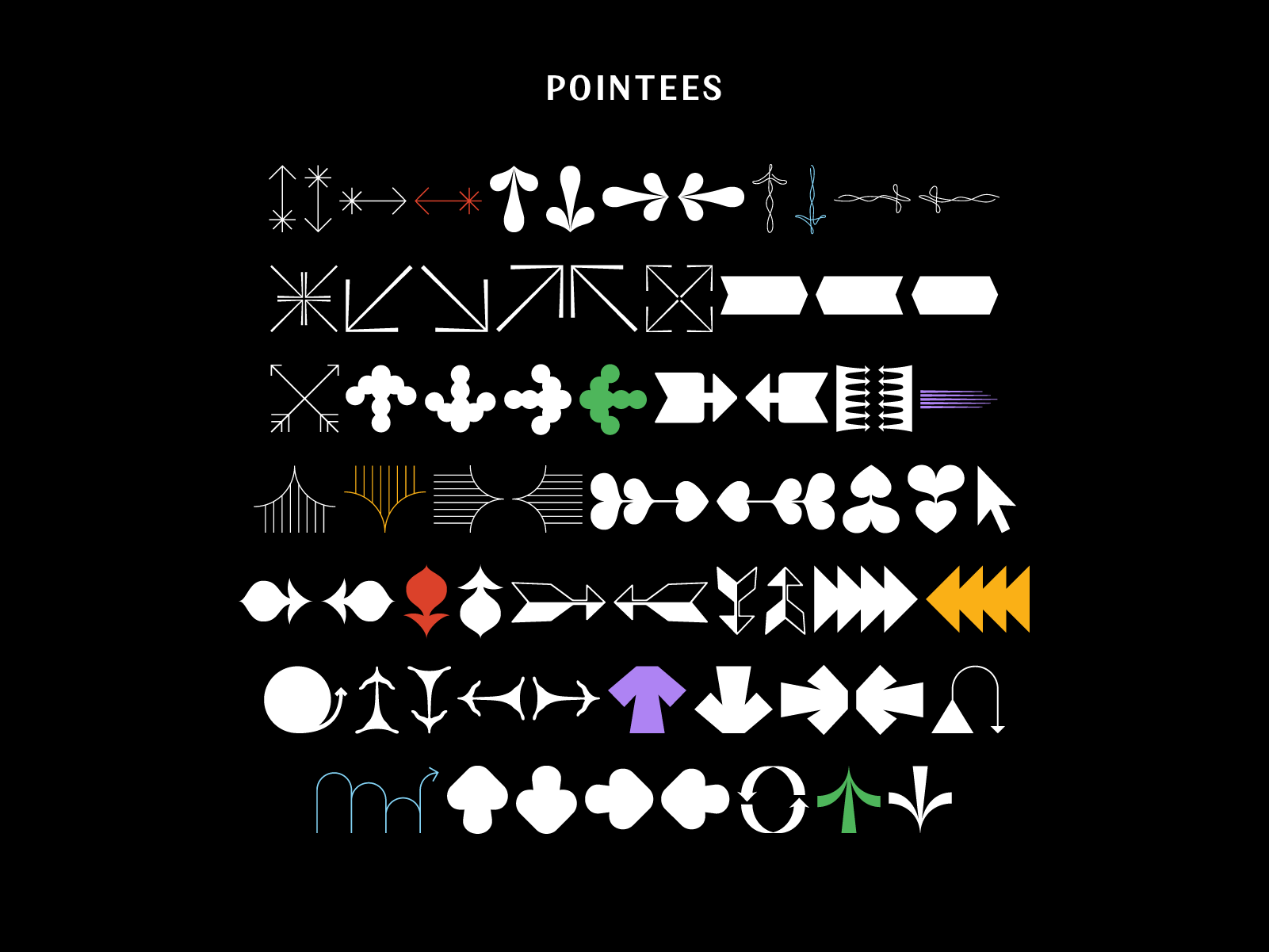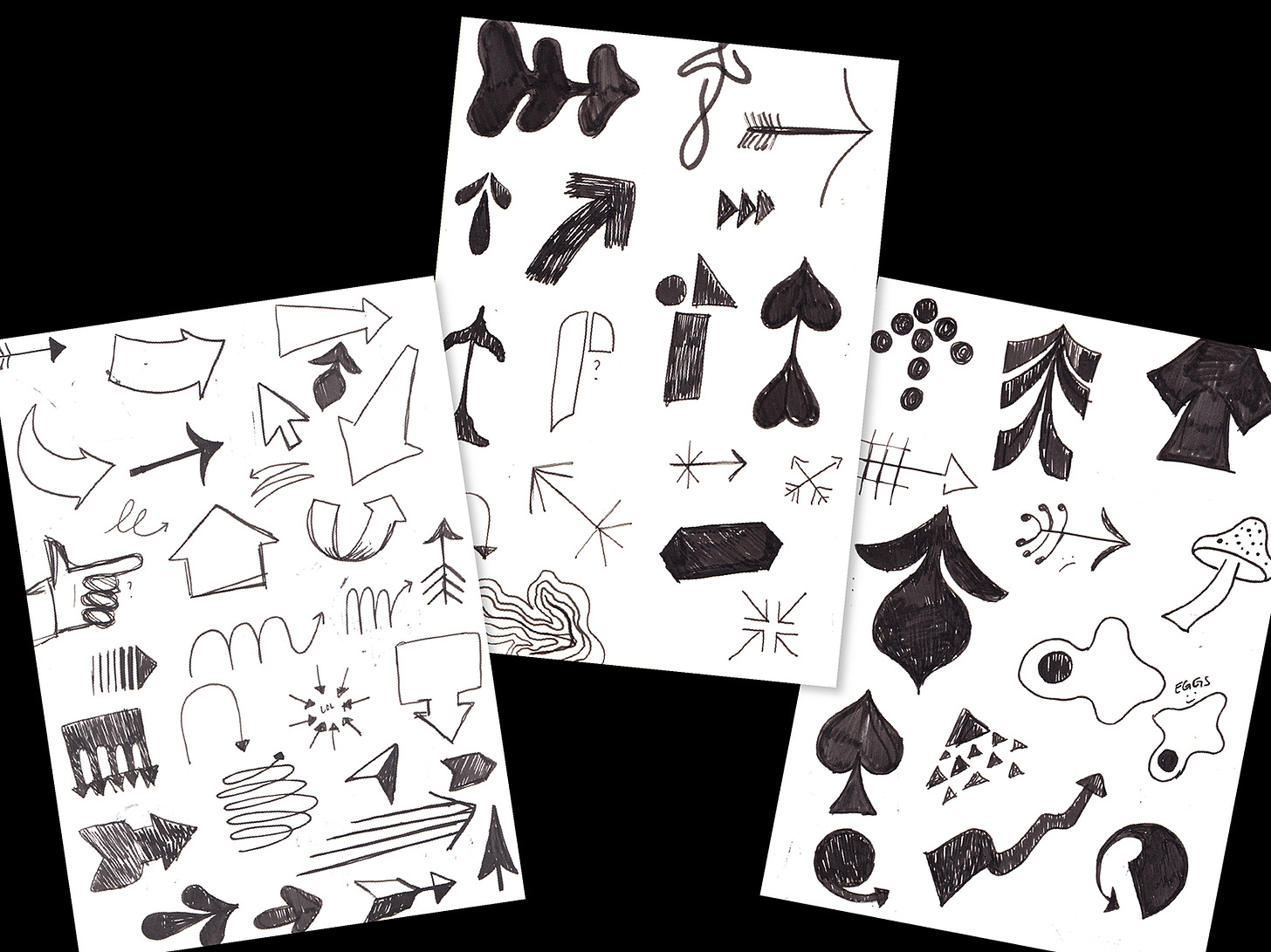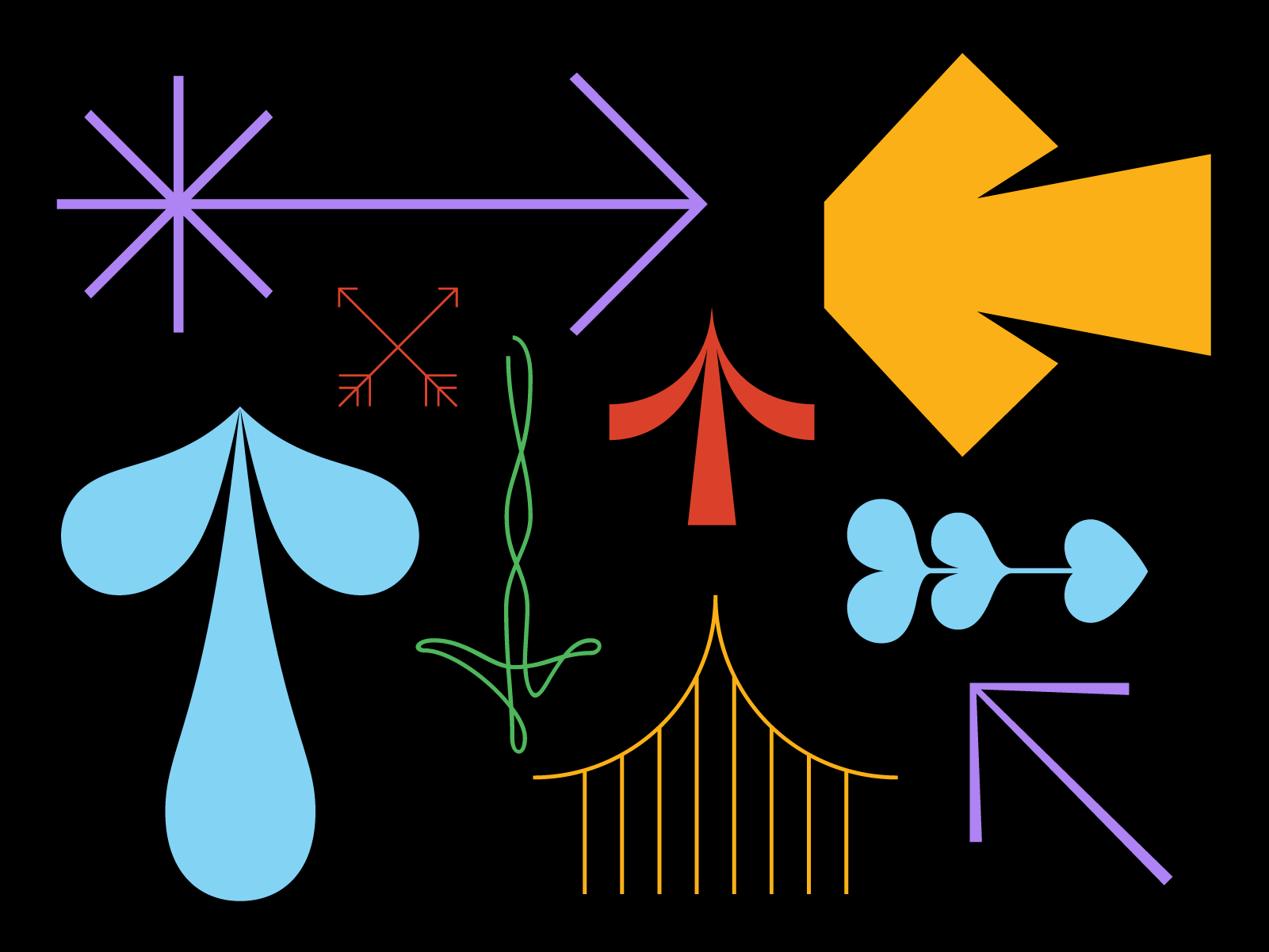
I had the incurable urge to design some dingbats this week. I began by sketching arrows and getting all the little normie arrows out of my system. Then I focused on making arrows that belong to other fonts that I’ve designed. After I exhausted the arrow ideas I could think of, I pulled out one of my favorite design references. It’s called Graphic Idea Notebook by Jan V. White and it was published in 1980. I found it in a free box at my local garden store of all places! It’s definitely a pre-computers/paste-up era design book. I loooove this kind of reference because it’s just page after page of 80’s design solutions that I find really charming. There are about 5 pages of arrows in this book that are literally there to be copied. So generous of Jan!! Of course I didn’t directly copy any, but I did use some of them as a jumping off point because I can’t store all the arrow possibilities in the old dome.
It always feels like a safer bet to rely on things of the past so that you don’t step on another designer’s toes. My main fear with this project is to accidentally copy someone’s work. Rapid-fire type design could easily go that way! Being in this little niche of an industry, I have my finger on the pulse of what’s being released. The trick is to not constantly and absently look at type design work. I try to only look in small doses and be very aware while I’m doing it.
However, I have learned through this process that there is still an infinite amount of ideas that haven’t been made yet. For me, the process for creating original work is to rely solely on my own brain and never reference any modern type designer’s work. I don’t make mood boards or try to make anything too trendy. If I absolutely need a reference: I scour books, classic type faces, or online archives/museums.
Some advice for making original work:
Rely on what has come before. Iterate on the classics. Put your own personal spin on it. (This one has to be done respectfully. Make sure you know where your sources come from and who/what they represent.)
Create something that is personal for you. If you like vintage cars, make a chrome font! If you like boats, name a type foundry after your favorite one. ;)
Don’t ever tell yourself everything worthwhile already exists — it’s not true! You’re stopping before you even get started.
Remember to play! Art is fun. Paint letters with your eyelashes or draw comic sans from memory. There are no rules and the world is your frickin’ oyster!!
Okay, I gotta stop before I get too yelly. I hope it’s not lost on anyone that I wrote that for myself as much as I did for you! I hope you enjoy Pointees and the fact that I can’t stop making dingbats. Thanks for reading my rambling thoughts this week! I’ll see you next Friday!